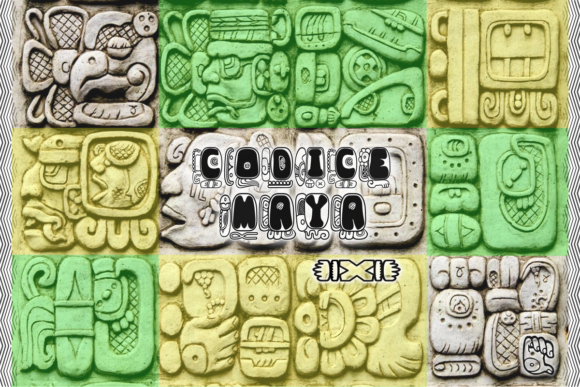
The Perfect Blend of Art and Creativity
Have you ever found yourself stuck in the middle of a design project, desperately searching for that one element that will elevate your idea to the next level? We’ve all been there, and it’s those moments that make us appreciate the power of the perfect font. The right typography can make all the difference between a good design and a great one.
Enter the Codice Maya Font, a masterfully designed decorative font that’s sure to become a true favorite among designers. With its unique blend of art and creativity, this font is the perfect tool for bringing your ideas to life. Whether you’re working on a project that requires a touch of elegance or a dash of playfulness, the Codice Maya Font is the perfect choice. Its versatility and sophistication make it an invaluable asset for designers looking to take their work to the next level.
Codice Maya Font Key Features
- Font Family: Codice Maya is a typeface family designed to evoke the mysticism and grandeur of ancient Mesoamerican cultures, specifically the Mayan civilization.
- Unique Characteristics: Features intricate details and ornaments, as well as a unique blend of modern and ancient design elements, making it a standout choice for designers seeking to add an air of mysticism and culture to their work.
Codice Maya Font Review
Overall, I think Codice Maya Font is an interesting and unique addition to the world of typography. Let’s dive in and see what makes it tick.
- Unique blend of Mayan and modern elements – it’s a refreshing change from the usual sans-serif fonts.
- OpenType features are well-implemented, making it easy to access the font’s full potential.
- Good legibility, especially at larger sizes, making it suitable for body text and headings.
- Limited language support – it’s mainly designed for English and Spanish.
- Not ideal for small text sizes – the font’s intricacies can become difficult to read at very small sizes.
- May not be suitable for very formal or traditional applications – its unique style might be seen as too playful.
Overall, I think Codice Maya Font is a great choice for designers looking to add some visual interest to their projects. It’s perfect for creative industries like advertising, publishing, or even video game design. However, it might not be the best fit for more traditional or formal applications.
Tips for Getting the Most Out of Codice Maya Font
Here are some tips for getting the most out of Codice Maya Font:
- Use the font for titles and headings to add a touch of elegance.
- Pair the font with other elegant fonts for a cohesive look.
Codice Maya Font is commonly used for:
- Book covers and interior design.